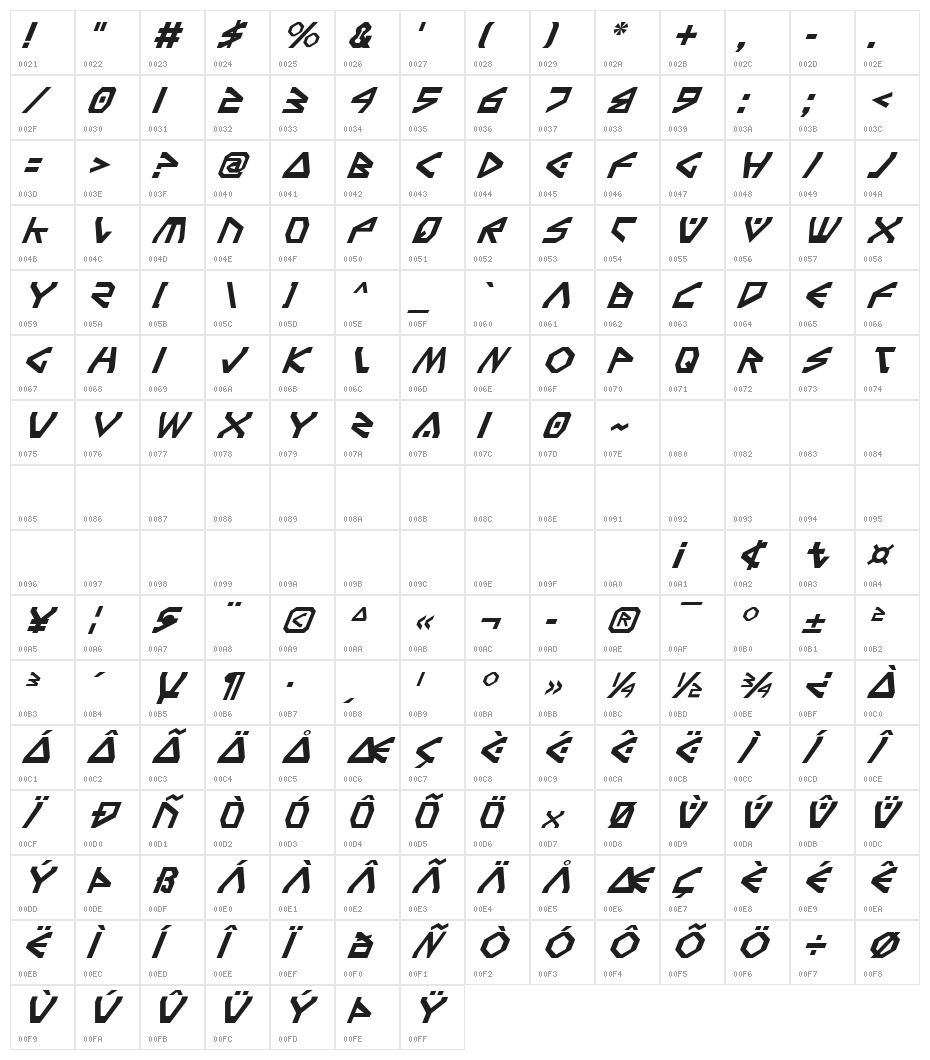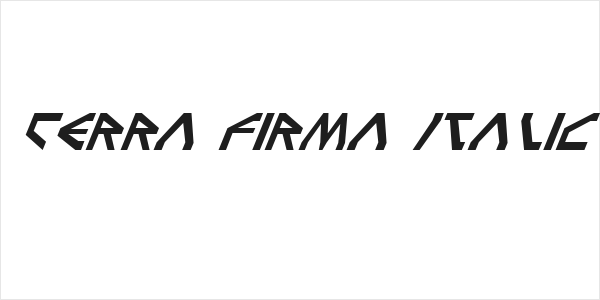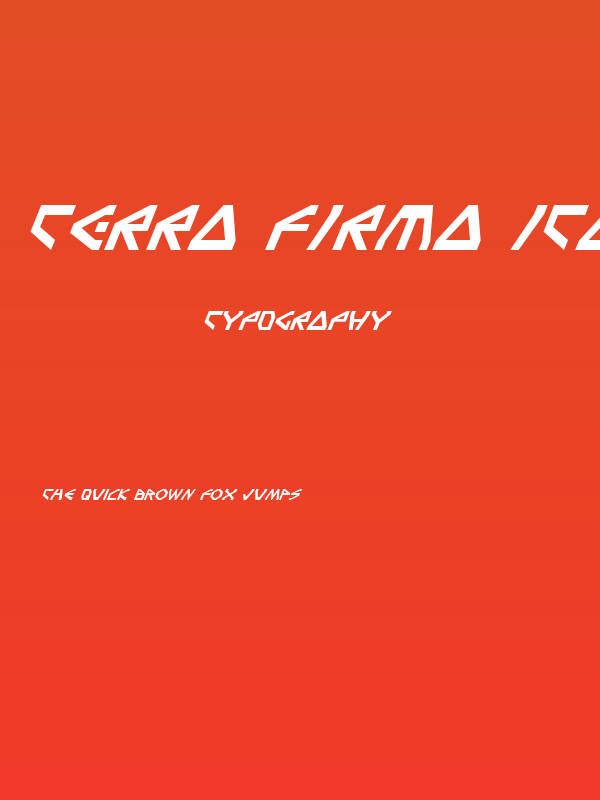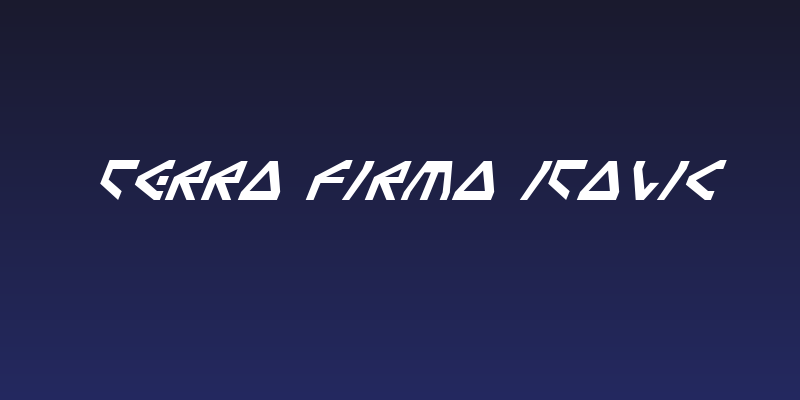
Terra Firma Italic Font
Terra Firma Italic Description
This font features a bold, angular design with a futuristic and dynamic appearance. The characters are sharply cut with distinct geometric shapes, creating a sense of movement and energy. The italicized style enhances its forward-leaning posture, giving it a sense of speed and modernity. The uppercase and lowercase letters maintain a consistent style, with the lowercase mirroring the uppercase in form. Numbers and special characters follow the same angular and bold design, ensuring uniformity across all glyphs. This font is ideal for projects that require a strong, impactful presence.
Proposed ProjectsIdeal for sci-fi themed designs, video game titles, technology branding, and dynamic posters.